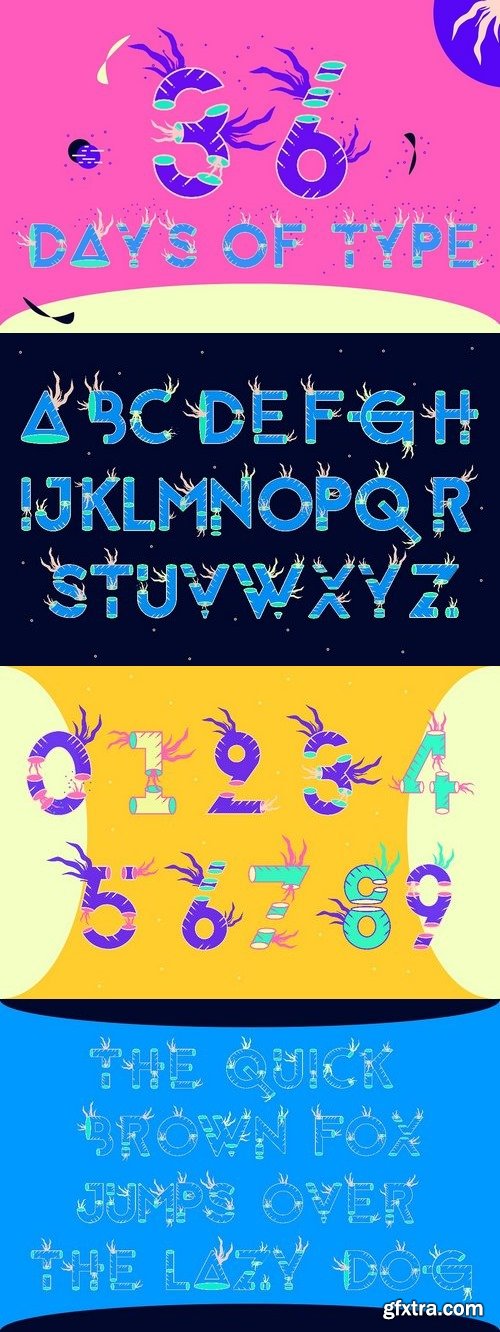
CM - 36 days type 1378432
36 days type - Fonts 36 days type - Fonts - 1 36 days type - Fonts - 2 36 days type - Fonts - 3 36 days type - Fonts - 4 36 days is a very colorful font with which you can make very beautiful designs. Includes an OpenType file which means this font will show up only in apps that are compatible with color bitmap fonts, like Adobe Photoshop CC 2017.0.